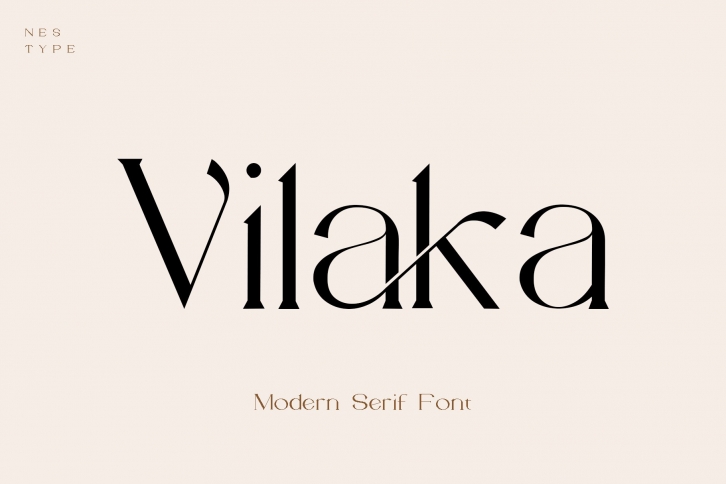
Vilaka Modern Serif is a beautiful font that was designed by Nest Studio. It's a great choice for designers and creatives who need such a font. It was released on October 14, 2022 and the file size is 9.30 MB. Vilaka Modern Serif may give a more youthful, expressive and casual look to your project. It is a very beautiful, refined, elegant, and high-quality font.